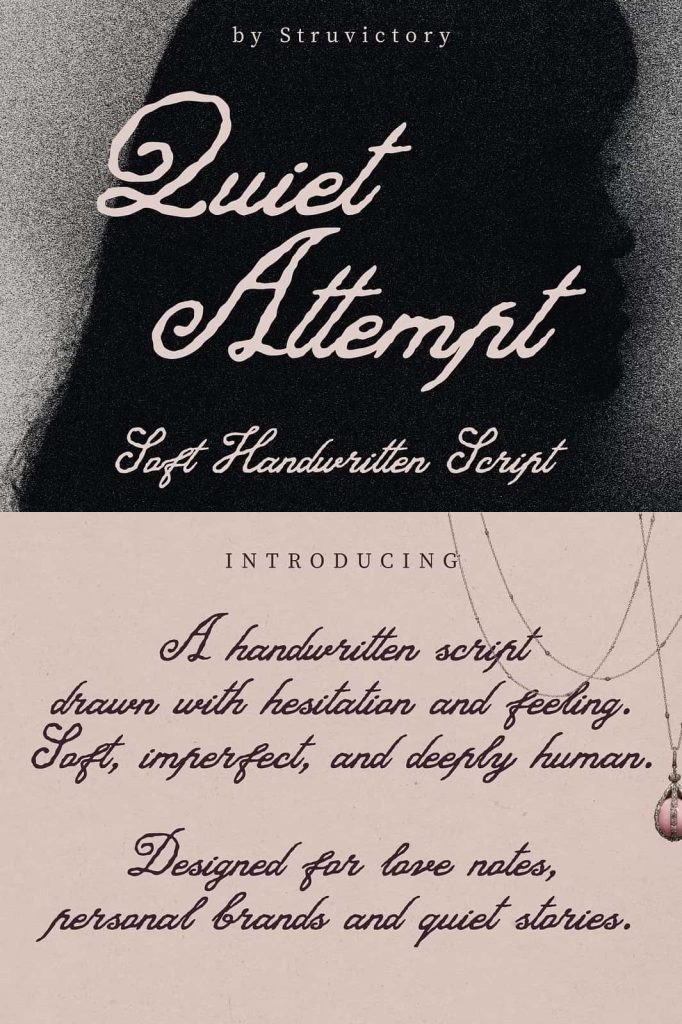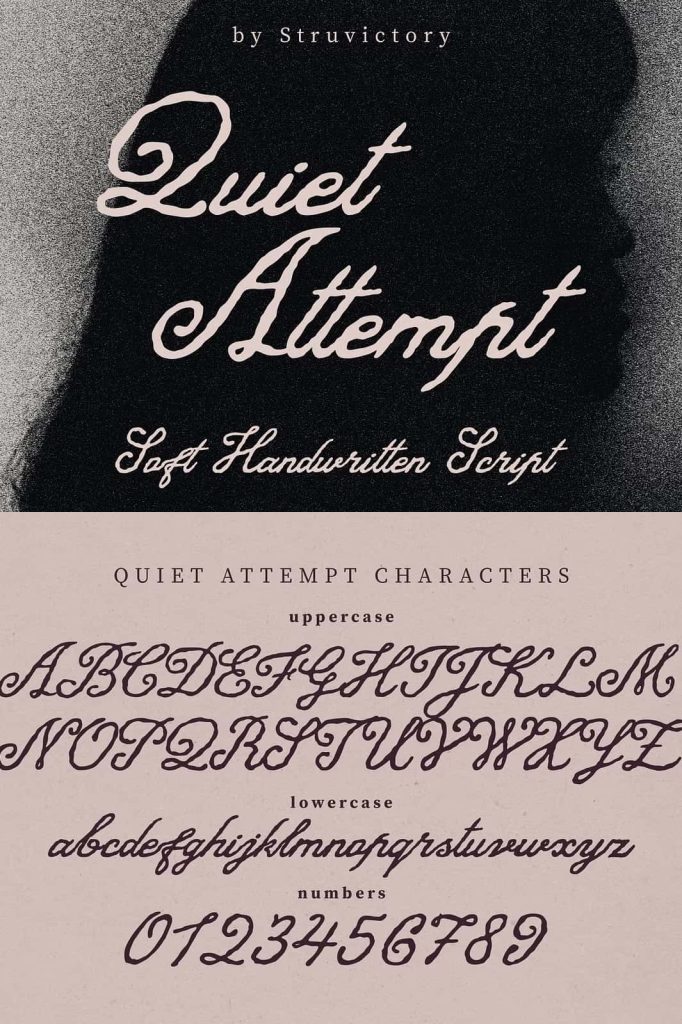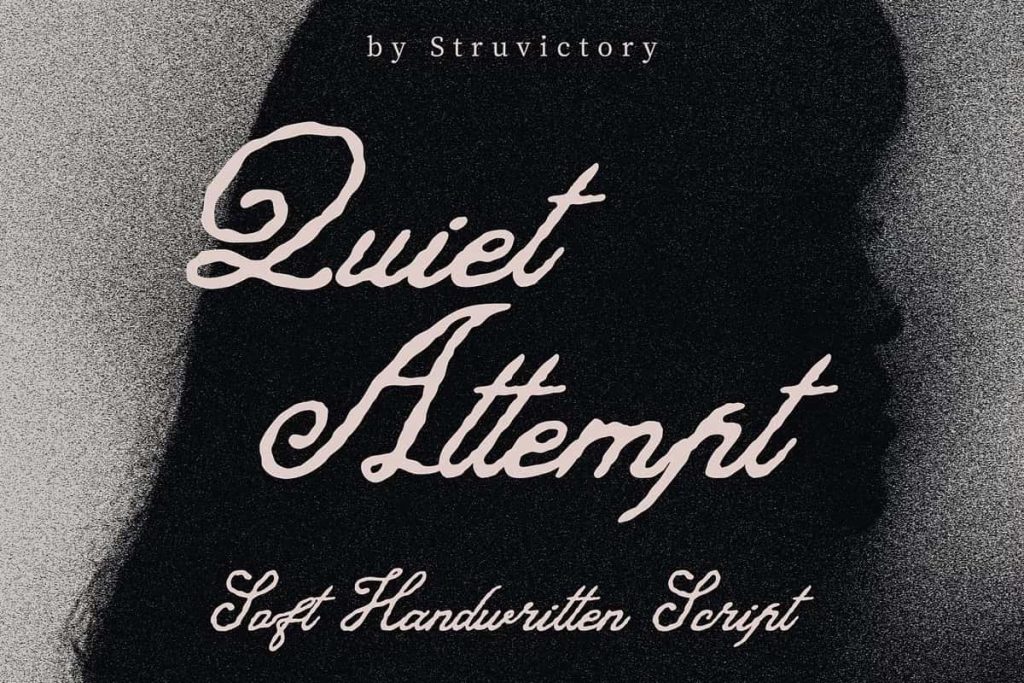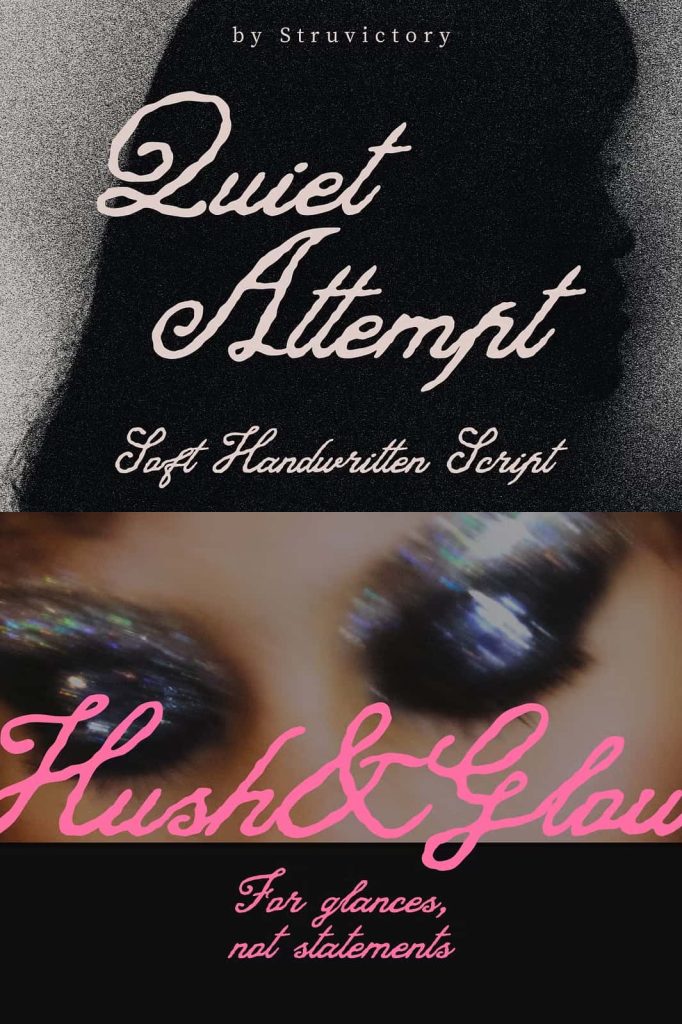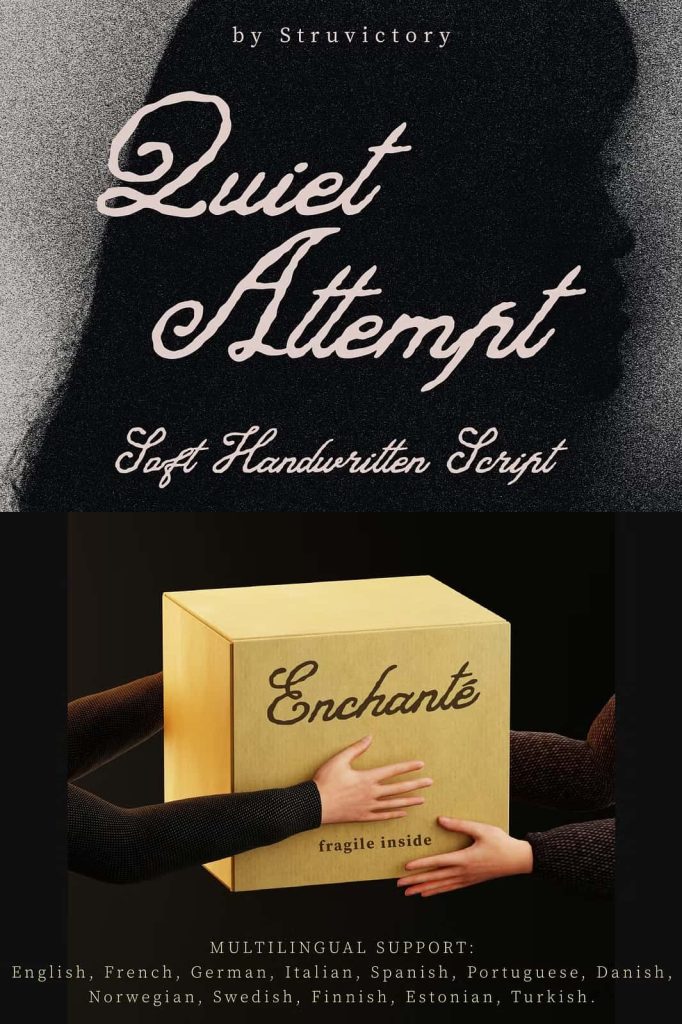
Quiet Attempt Handwritten Script Font for Romantic and Authentic Designs
Quiet Attempt is a beautifully crafted handwritten script font that embraces the beauty of imperfection. Designed with soft trembling strokes and gentle ink flow, this typeface captures the emotional warmth of handwritten notes, heartfelt letters, and personal messages. Every character reflects the subtle imperfections found in real handwriting, creating typography that feels genuine, intimate, and deeply human.
Inspired by quiet emotions, handwritten love letters, and thoughtful words written with care, Quiet Attempt delivers a timeless handwritten aesthetic that speaks with sincerity rather than extravagance. Its organic letterforms, natural rhythm, and delicate curves create typography that feels effortless while maintaining exceptional readability. Whether you’re designing elegant branding, wedding stationery, café menus, editorial layouts, or social media content, Quiet Attempt adds warmth and personality to every project.
A Handwritten Script Inspired by Real Emotions
Unlike many digital handwriting fonts that focus on perfect consistency, Quiet Attempt celebrates authenticity. Each letter features subtle variations that imitate natural handwriting, allowing every word to feel personal and expressive. The delicate ink flow and slightly trembling strokes recreate the feeling of writing by hand, making your typography appear genuine instead of mechanically generated.
This emotional quality makes Quiet Attempt an excellent choice for projects that seek to establish a meaningful connection with readers. Rather than relying on decorative flourishes, the font communicates through simplicity, honesty, and understated elegance.
Soft Letterforms with Natural Flow
Quiet Attempt combines graceful curves with carefully balanced spacing to create a smooth and comfortable reading experience. The script flows naturally from one letter to the next, producing harmonious words that maintain their handcrafted appearance while remaining highly legible.
Its organic rhythm gives every design a calm and inviting personality. Whether used in large headlines or shorter phrases, Quiet Attempt retains its emotional character without becoming overwhelming. The result is typography that feels sophisticated, approachable, and beautifully handcrafted.
Key Features
- Soft handwritten script with authentic ink-inspired strokes
- Organic letterforms with natural handwritten rhythm
- Subtle irregularities for a realistic handwritten appearance
- Romantic and emotional visual personality
- Excellent readability for headlines and short text
- Perfect for branding, packaging, editorial design, and invitations
- Ideal for print and digital creative projects
- Clean, elegant, and naturally expressive typography
Perfect for Romantic Branding and Personal Projects
Typography often defines how audiences emotionally connect with a brand, and Quiet Attempt excels at creating a welcoming and heartfelt impression. Its handwritten style feels warm and approachable, making it especially suitable for businesses that emphasize craftsmanship, creativity, and personal service.
This font works beautifully for boutique brands, handmade products, florists, cafés, bakeries, photography studios, beauty brands, lifestyle businesses, gift shops, and artisan packaging. The handwritten appearance communicates authenticity and care, helping brands build trust and emotional appeal with their audience.
Create Beautiful Wedding and Event Stationery
Quiet Attempt is an exceptional choice for wedding invitations, save-the-date cards, RSVP designs, bridal shower invitations, anniversary celebrations, greeting cards, and other meaningful occasions. The gentle handwritten style creates an atmosphere of elegance and intimacy without appearing overly formal or decorative.
Names, heartfelt quotes, and personalized messages all look graceful when set in Quiet Attempt. The font helps transform ordinary stationery into memorable keepsakes that reflect the emotion behind every special event.
Ideal for Editorial Design and Social Media
Editorial layouts often rely on typography to communicate mood as much as information. Quiet Attempt introduces a calm and emotional voice that enhances magazine spreads, book covers, blog headers, inspirational quotes, journals, and creative publications.
On social media, the font helps create visually engaging graphics that feel authentic and relatable. Whether you’re sharing motivational quotes, product promotions, lifestyle content, or creative announcements, Quiet Attempt adds personality while maintaining a clean and professional appearance.
Beautiful for Packaging and Product Presentation
Product packaging becomes far more memorable when typography reflects the character of the brand. Quiet Attempt adds a handcrafted touch that instantly communicates quality, care, and authenticity. It performs exceptionally well on product labels, gift boxes, cosmetic packaging, candle jars, gourmet food packaging, apparel tags, and handcrafted merchandise.
Whether you’re designing intimate branding, elegant wedding stationery, charming café signage, editorial layouts, social media graphics, product packaging, inspirational quotes, or creative personal projects, Quiet Attempt provides the emotional depth and timeless beauty needed to make every word feel genuine. If you’re looking for a handwritten script font that combines romance, authenticity, and modern versatility, Quiet Attempt is an outstanding addition to your typography collection.